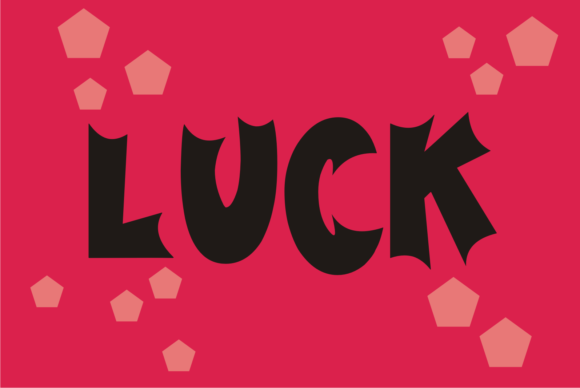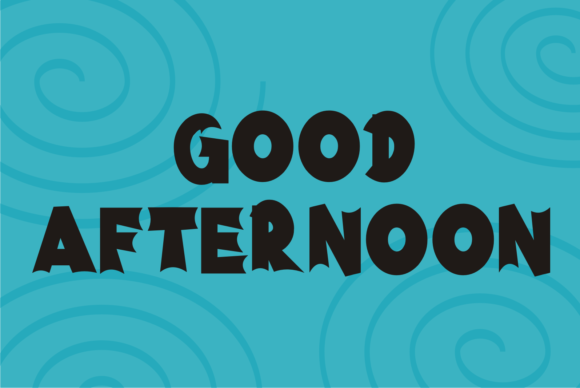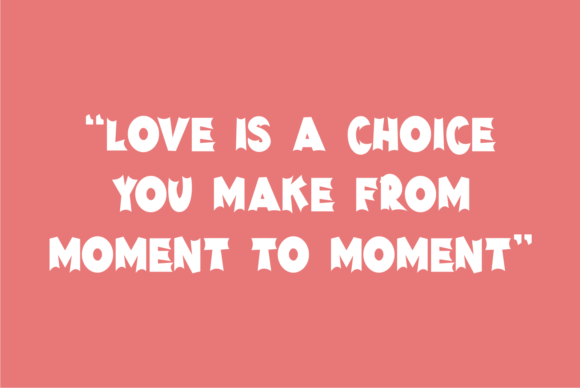
Introduction to Pikolo Font
As a designer, there’s nothing quite like the thrill of discovering a new font that perfectly captures the essence of your creative vision. For me, that moment came when I stumbled upon the Pikolo Font – a thick-lettered and cool display font that instantly elevates any design project.
With its simple yet striking design, Pikolo Font is a game-changer for designers looking to add a touch of sophistication and visual appeal to their work. Whether you’re working on a free download project or a high-end commercial design, this versatile font is sure to make your creations stand out from the crowd. And with its transparent background, you can easily integrate it into any design resource, from logos to social media graphics.
Pikolo Font
- High-Quality Design Resource: Pikolo Font is a premium design resource suitable for various creative projects, including graphic design, digital art, and print media.
- Unique Characteristics: This font features a unique blend of modern and vintage elements, making it an excellent choice for designers looking to add a touch of personality to their projects.
Honest Review: Pikolo Font
I recently stumbled upon the Pikolo Font while searching for a unique design resource for a creative project. I was immediately drawn to its quirky and playful feel, making it perfect for adding some personality to my design.
- ✨ High-quality design
- ✨ Versatile and suitable for various design projects
However, I did notice a few limitations: ⚠️ The Pikolo Font is not ideal for use on transparent backgrounds, as the font’s design can become somewhat washed out. Additionally, the font may not be suitable for use in extremely formal or professional settings, due to its playful nature.
Overall impression: I’m really enjoying the Pikolo Font and think it’s a great addition to any designer’s toolkit. While it may not be perfect for every project, it’s definitely worth considering for creative projects that require a bit of personality and flair.
Tips for Getting the Most Out of Pikolo Font
To get the most out of Pikolo Font, experiment with different font sizes, colors, and styles to create visually appealing designs. You can also combine it with other design elements, such as graphics and images, to create a cohesive look.
The Pikolo Font is ideal for a variety of creative projects, including logos, brochures, business cards, and websites. Its high-quality typography and transparent background feature make it a versatile design resource for any project.